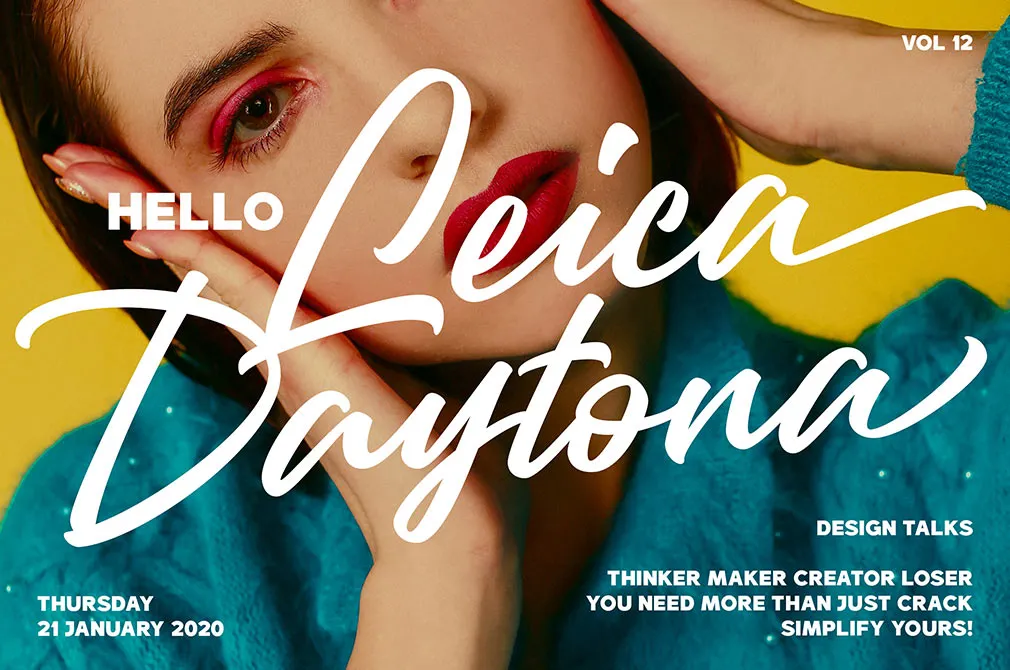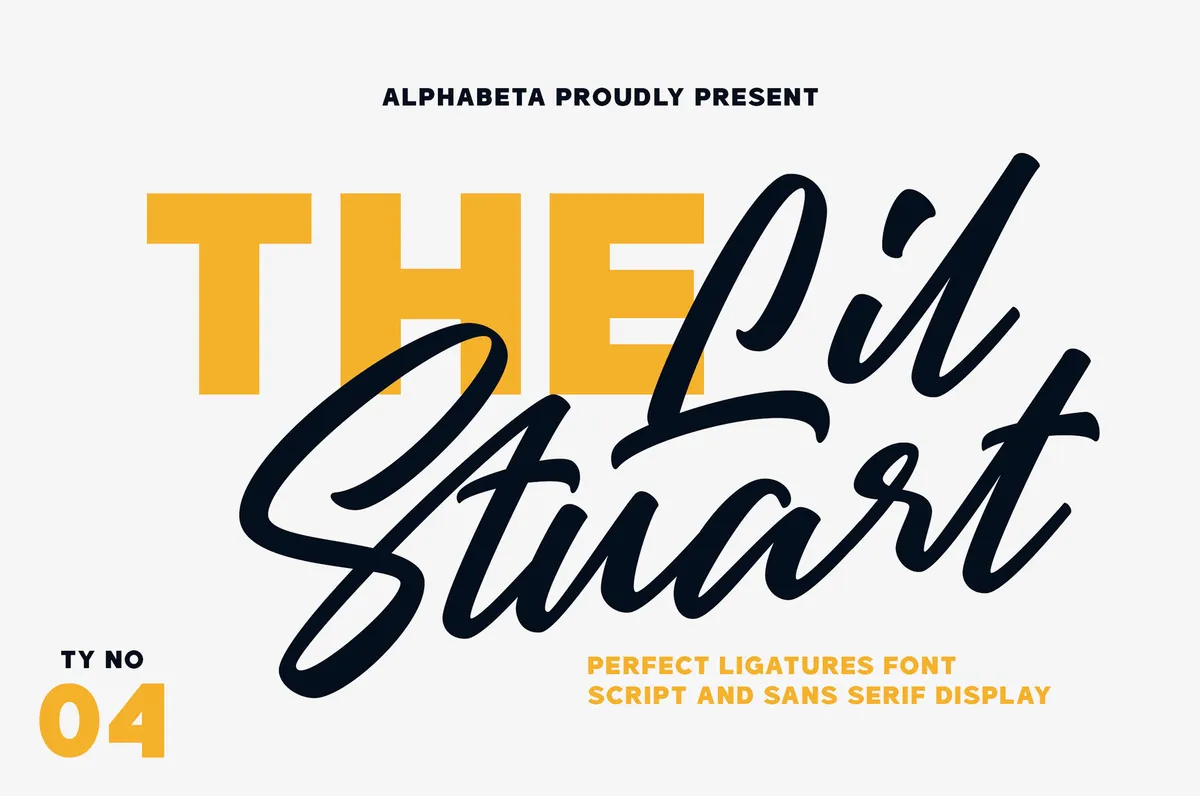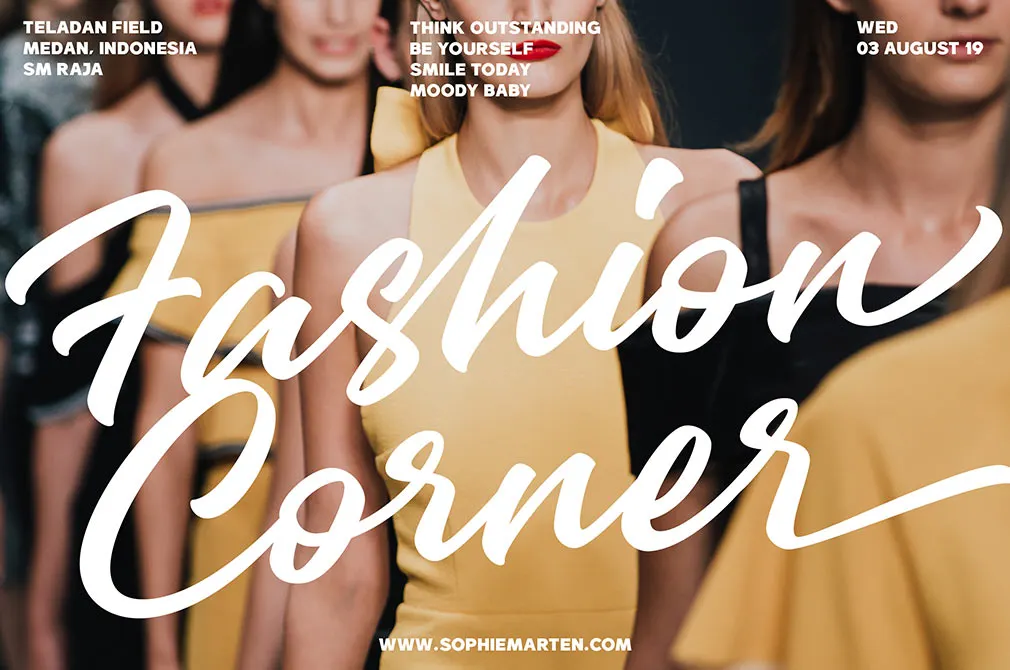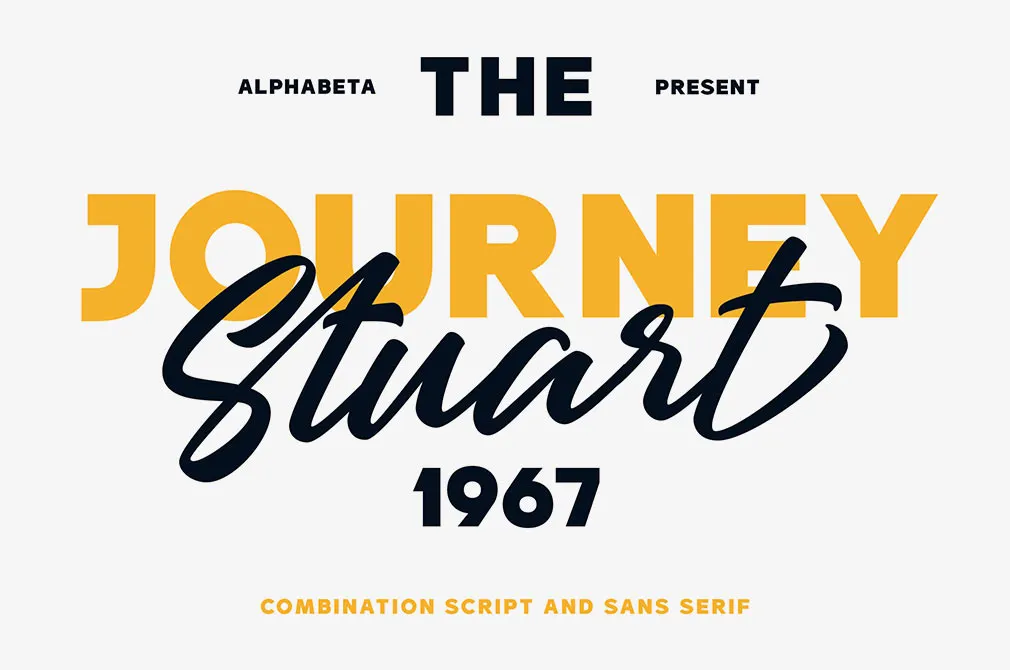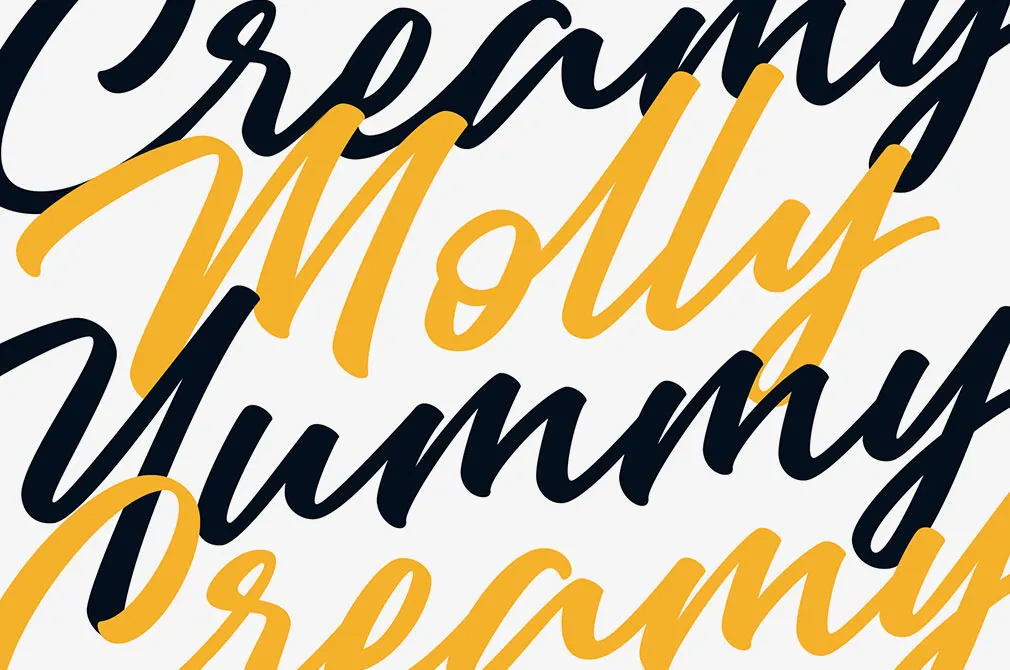
Lil Stuart Fonts Collection
Get your work done with the help of script and sans serif fonts, united in one combination! Majestic handwriting with the strict sans to create artistic contrast and diversity in your projects.
To make it look like handwriting, there were created 167 ligatures so you can mix and match it to make a better type on your design. The typographic style of Lil Stuart is concentrated in pairing script and sans serif for your impeccable design. You can trust it while making apparel pieces, advertising, website projects, or logotypes!